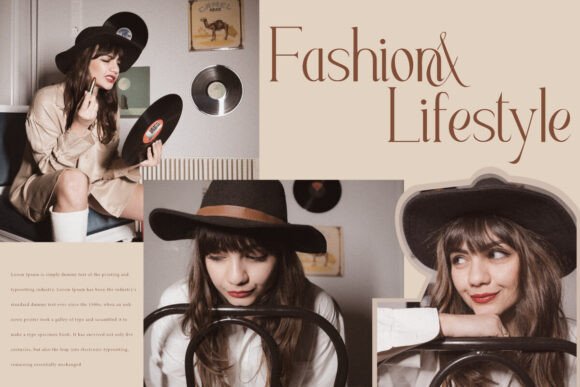
Vintage Magazine Font is an aesthetic and classic timeless serif display font by NoahType. This font is suitable for those of you who want to bring a vintage style to every design you make. It will be good for any designs, such as brand image, business card, custom design, invitation, label, magazine, poster, product packaging, quote, signage, stationery, web, and more!
Vintage Magazine Font